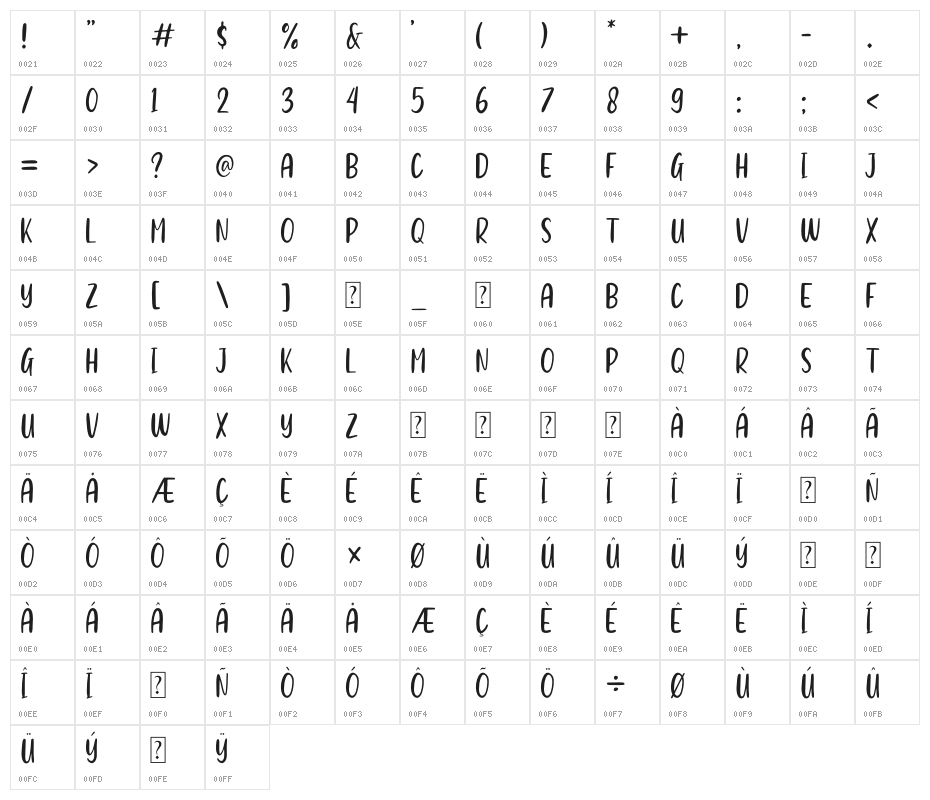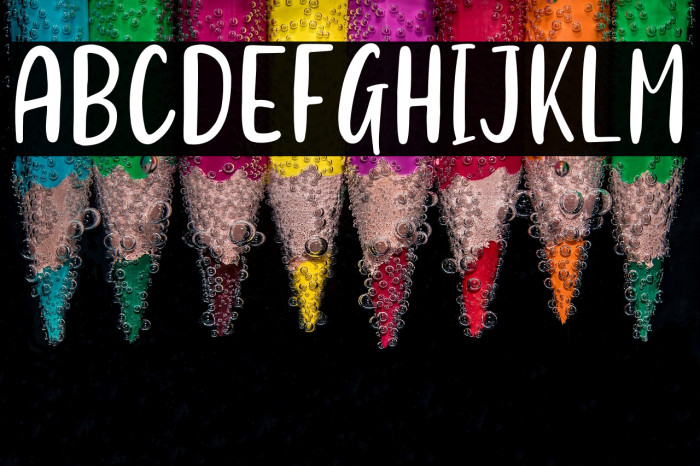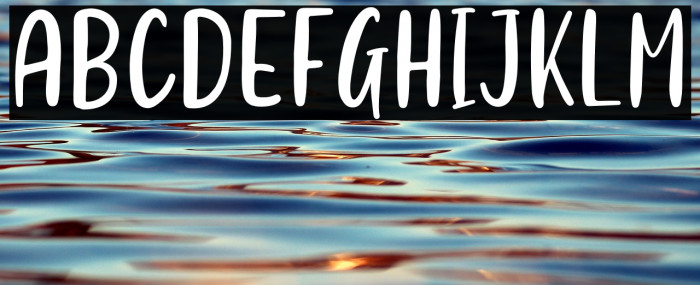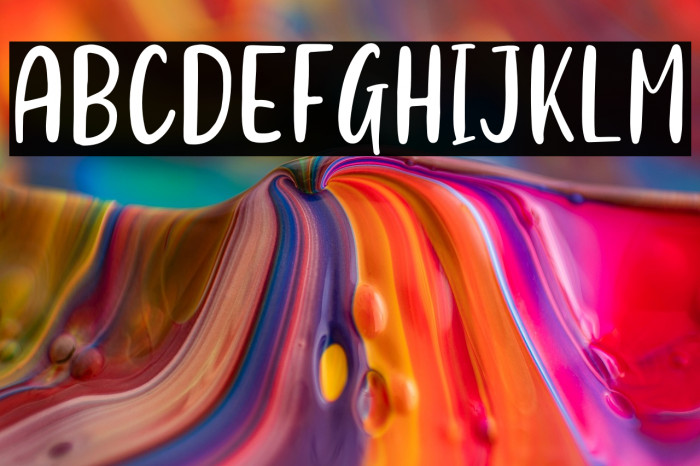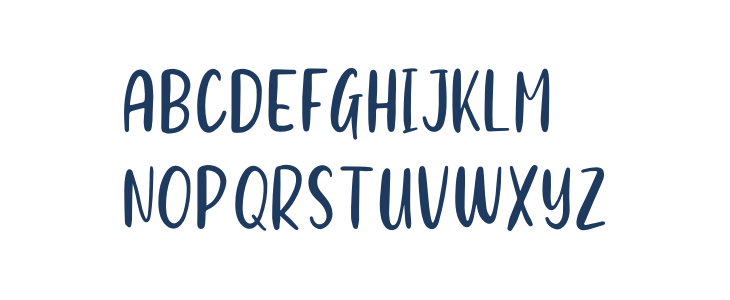
Peaceful Heart Sans Font
Peaceful Heart Sans Description
This font features a playful and casual handwritten style, characterized by its smooth curves and slightly irregular strokes that give it a friendly and approachable appearance. The letters are slightly elongated with a consistent stroke width, creating a harmonious flow across the text. The uppercase and lowercase letters maintain a cohesive look, while the numerals and special characters complement the overall design. This font's informal and relaxed vibe makes it ideal for projects that require a personal touch.
| Proposed Projects | Ideal for greeting cards, invitations, personal branding, and social media graphics. |